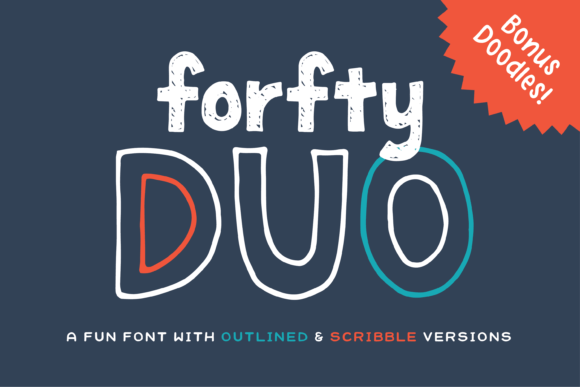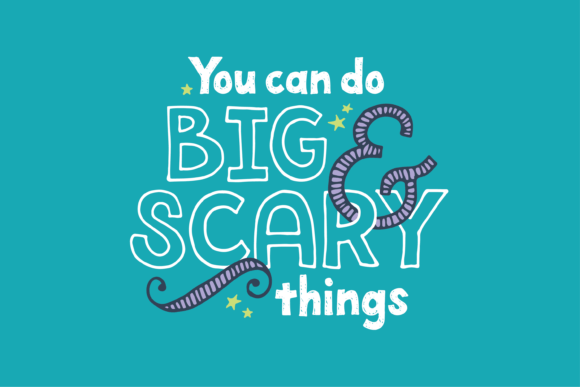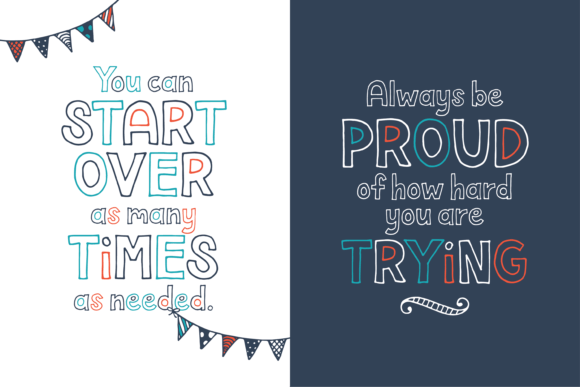
Forfty Duo Font
About the Forfty Duo Font
Discover the charm of Forfty Duo Font. This font is a perfect blend of modern aesthetics and classic appeal. Forfty Duo is an adorable, hand-drawn font that comes in two variations: outline and scribble. It’s childlike letterforms create a sweet and simple style that pairs perfectly with the bonus doodle pack. A color svg-otf version of the font is also included.
Forfty Duo’s playful hand-drawn style is ideal for children’s books, branding for playful products, or whimsical packaging designs. It works exceptionally well in headlines, short text blocks, and as an accent font for logos. However, its informal nature makes it unsuitable for body text, long paragraphs, or applications requiring high readability, such as user interfaces.
The lightheartedness of Forfty Duo is best complemented by pairing it with clean sans-serif fonts like Open Sans or Lato for a balanced contrast. For a more sophisticated feel, consider pairing it with a delicate serif like Playfair Display. Avoid pairing it with overly bold or geometric fonts, which might clash with its hand-drawn charm.
Forfty Duo’s overall personality is undeniably cheerful and friendly, making it a perfect choice for projects that need to communicate warmth and approachability.
Forfty Duo Font Usage Examples
Forfty Duo Font Example